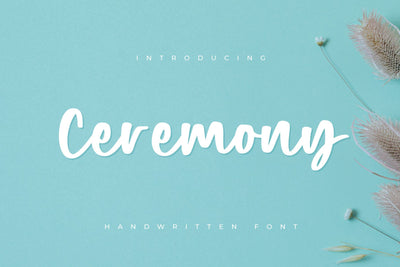
Ceremony Handwritten font
Ceremony is lovely handwritten with sweet and smooth shape. this font flexible to use and easy to mix and match for your design project like branding, logo, instagram post, t shirt and many other.